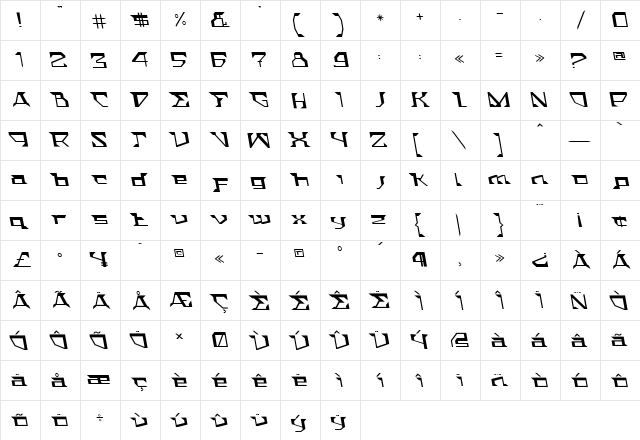
ACTStern Italic
Design Context for ACTStern Typeface
ACTStern is a composed and adaptable typeface that performs quietly and consistently across a wide range of design contexts. The dynamic lean of this cut emphasises speed and emphasis in any layout.
Pro Tip: Use ACTStern for emphasis, pull quotes, and subheadings where its slanted energy can add rhythm to the layout.